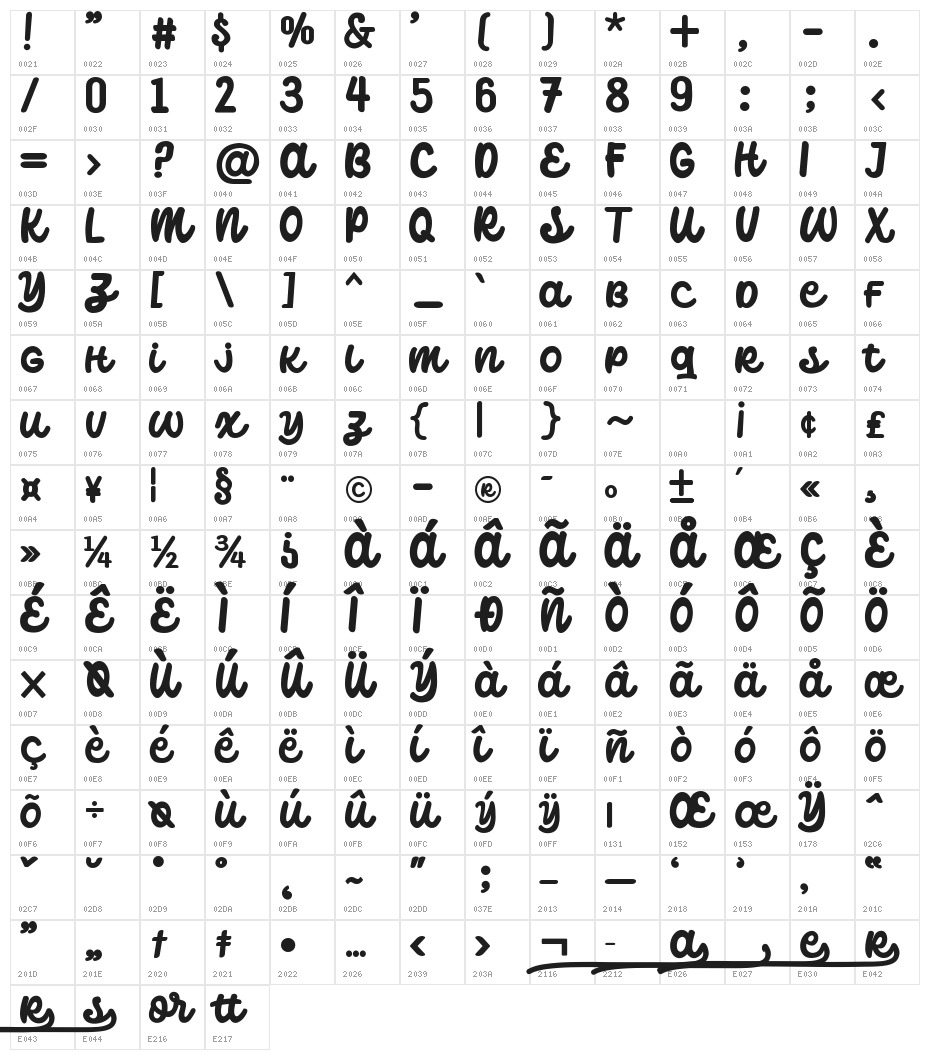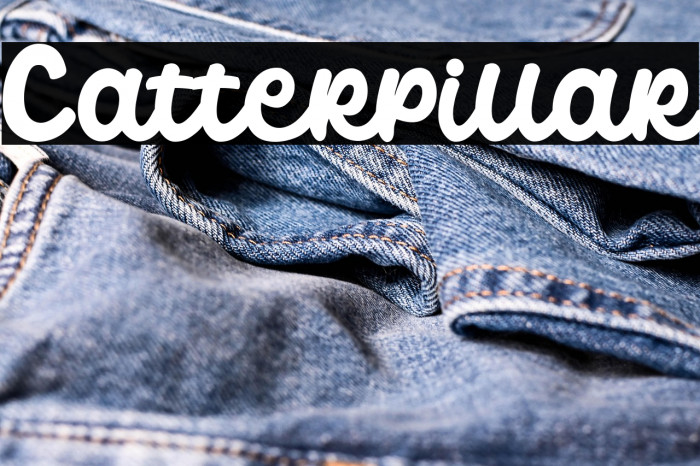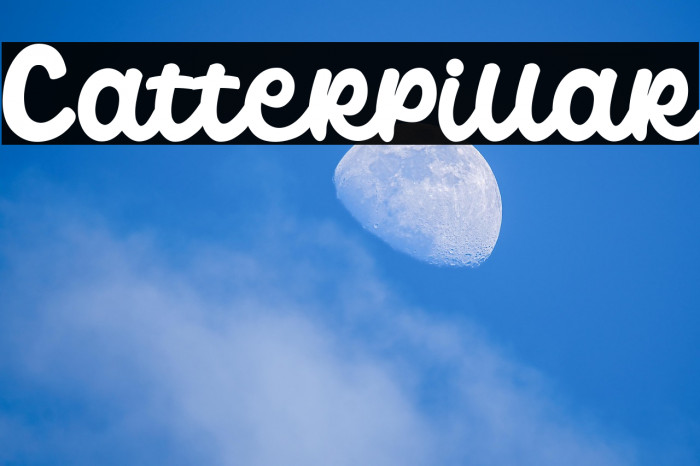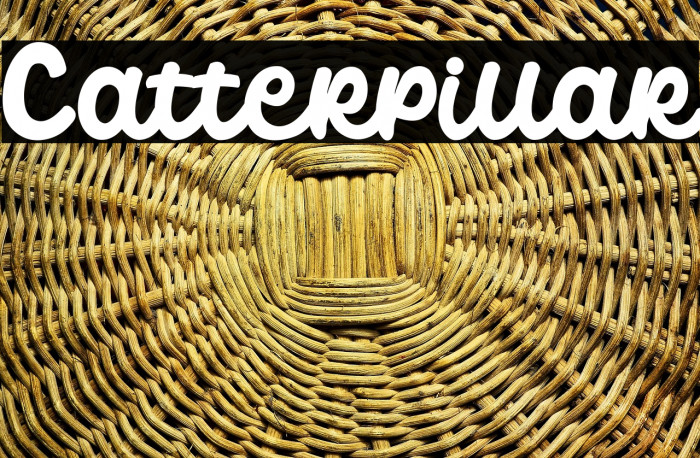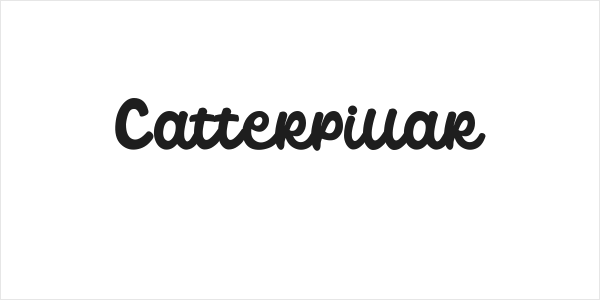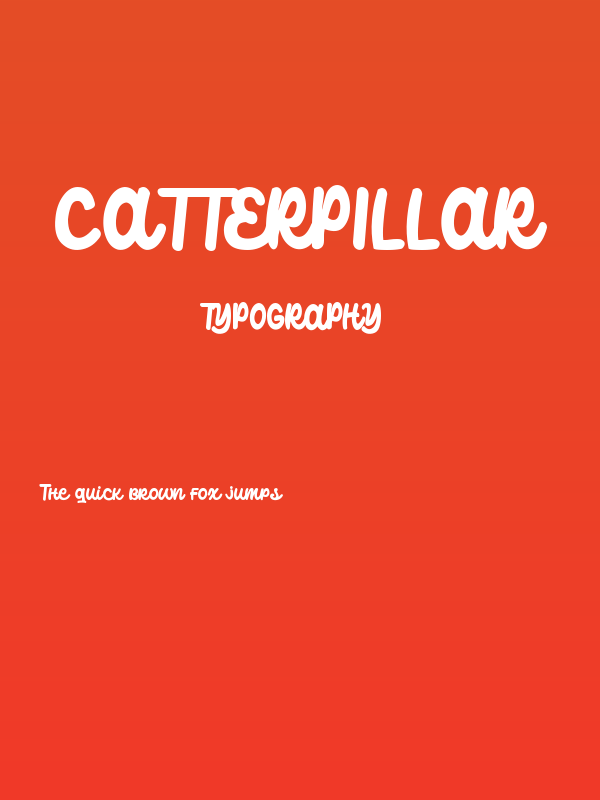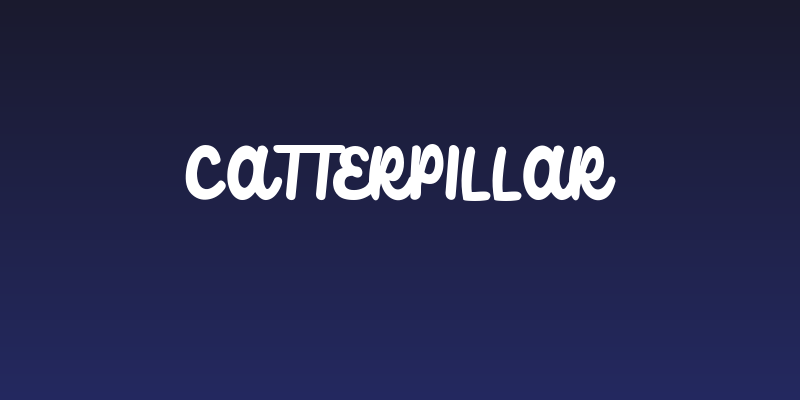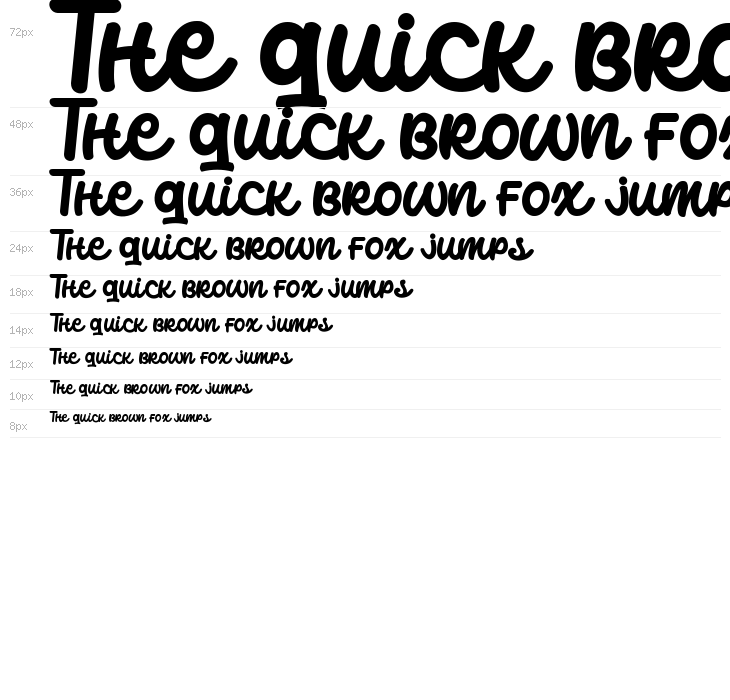
Catterpillar Font
Catterpillar Description
This playful and bold font features a handwritten style with thick, rounded strokes that give it a friendly and approachable appearance. The letters are closely spaced, creating a compact and cohesive look. The uppercase and lowercase letters maintain a consistent style, with smooth curves and a slight slant that adds a dynamic feel. The numerals and special characters are equally bold and rounded, ensuring uniformity across all elements. This font's lively and informal style makes it ideal for projects that require a personal touch or a sense of fun.
| Proposed Projects | Ideal for children's books, playful branding, greeting cards, and casual invitations. |